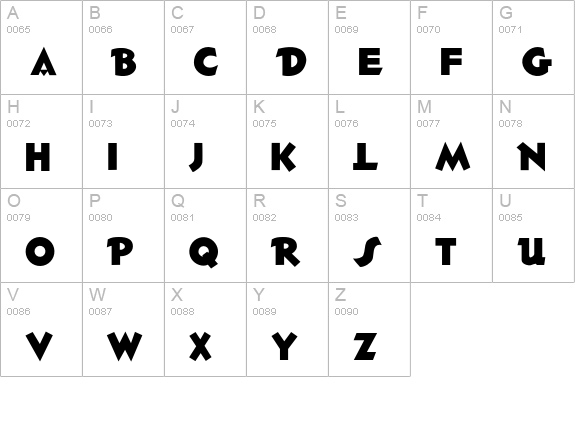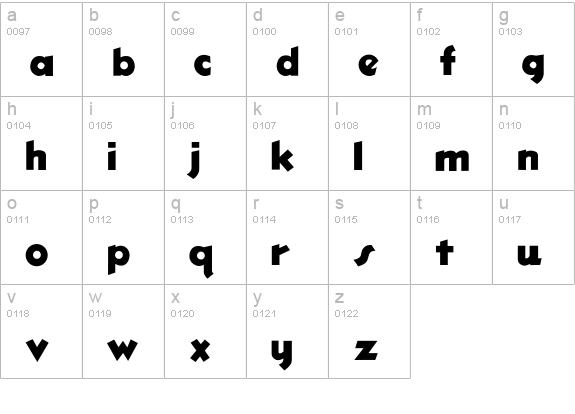
Telestomp Font Details
Telestomp is a visually striking and attention-grabbing font that is sure to make your designs stand out. With its bold and powerful letterforms, this font exudes confidence and strength. The unique combination of sharp edges and rounded corners creates a harmonious balance that is both modern and timeless. This font is not only visually appealing, but it is also incredibly versatile. Whether you are designing a logo, creating a poster, or crafting a headline, Telestomp will elevate your work to new heights. Its strong presence on the page demands attention and ensures that your message is heard loud and clear. One of the best things about Telestomp is that it is freely available to download at FontsMarket.com. This means that you can add this stunning font to your collection without spending a dime. Whether you are a professional designer or a hobbyist, having access to high-quality fonts like Telestomp can greatly enhance your creative projects. The designers behind Telestomp have thoughtfully crafted each character, paying attention to every detail to ensure a seamless and cohesive typeface. The result is a font that is not only visually appealing, but also highly legible, making it a breeze to read even at smaller sizes. Telestomp is perfect for a wide range of design projects, from bold headlines to eye-catching logos. Its versatility allows it to be used in various industries, such as advertising, branding, fashion, and more. No matter the application, Telestomp will bring a sense of strength and sophistication to your designs. So why wait? Download Telestomp today and unlock a world of creative possibilities. With its bold and powerful letterforms, sleek design, and free availability at FontsMarket.com, Telestomp is the perfect font to elevate your design projects to new heights. Embrace the power of Telestomp and make a bold statement with your typography.